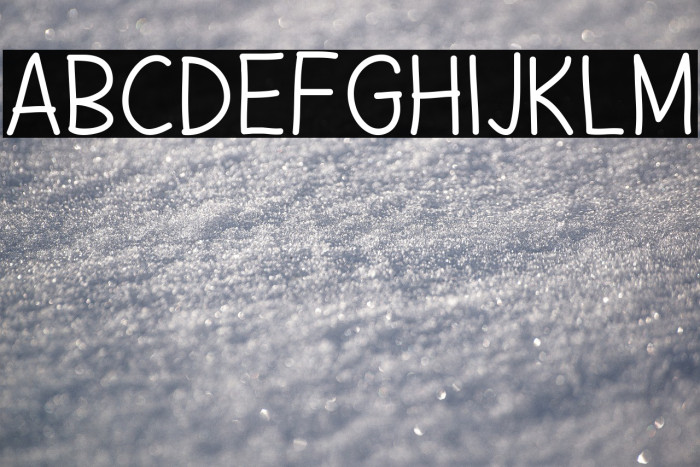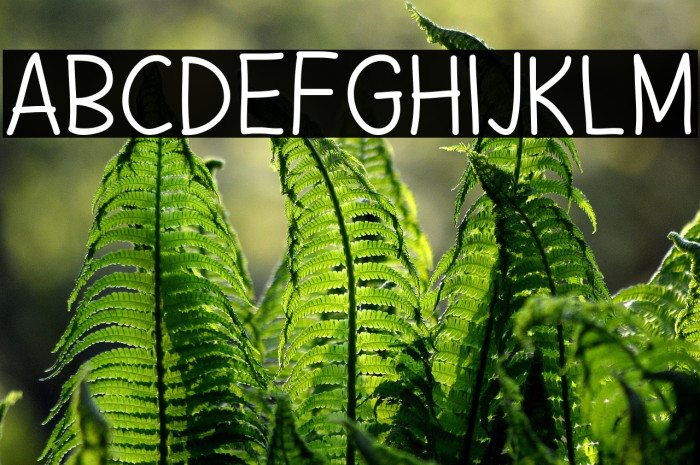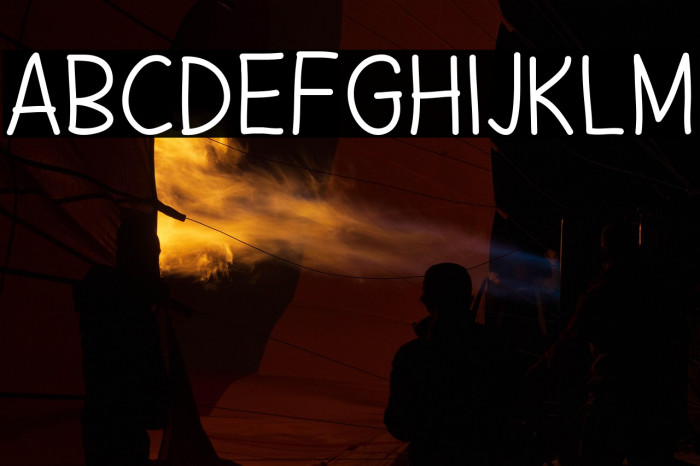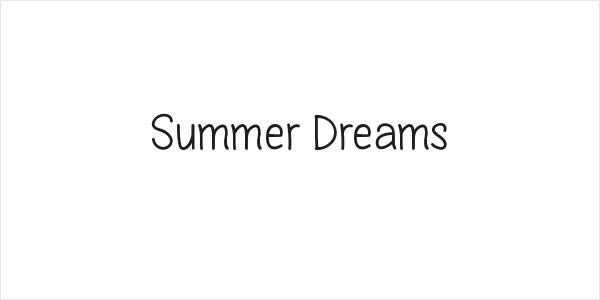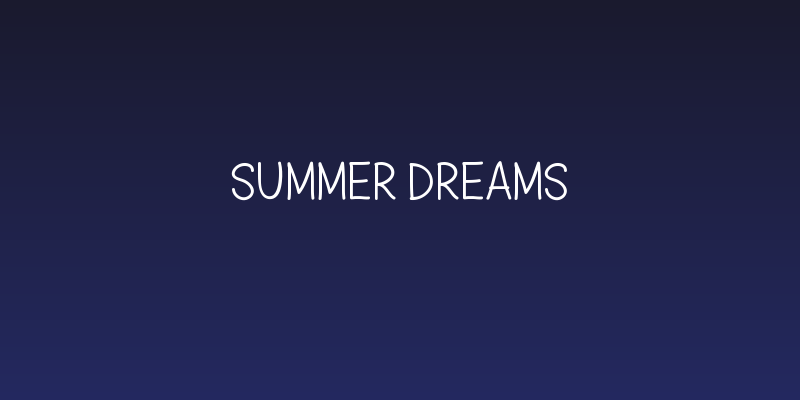
Summer Dreams Font
Summer Dreams Description
A playful, handwritten sans-serif font with rounded terminals and a casual, informal appearance. The strokes are consistent in width, and the letterforms are slightly irregular, giving it a friendly and approachable feel.
| Overall Style | Playful, Informal, Friendly |
| Use Case | Headlines, Short text, Invitations, Posters |
| Proposed Projects | ChildrenΓ’β¬β’s books, greeting cards, posters, informal branding, social media graphics. |